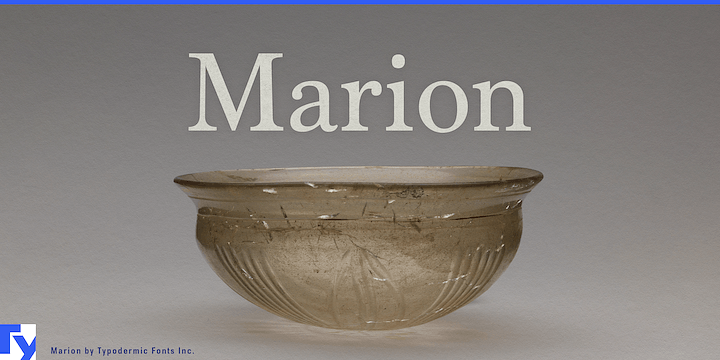
Step into the refined world of Marion, a transitional serif typeface that bridges the gap between centuries with effortless grace. This extraordinary typeface doesn’t merely nod to the past—it orchestrates a typographic symphony that resonates with the echoes of the industrial revolution and the whispers of literary salons. Marion’s DNA is a masterful blend of influences, fusing the classical structure of Century Roman with the refined stroke treatment of Baskerville. But it’s the typeface’s distinctive hammer claw serifs that truly set it apart, infusing each character with the robust spirit of 19th-century innovation. These unique serifs evoke the image of steam-powered precision, as if each letter were forged in the heart of a Victorian foundry. Available in Regular, Italic, Bold, and Bold Italic, Marion offers a quartet of voices that can articulate any design vision. From the understated elegance of its Regular weight to the commanding presence of its Bold, each variation maintains Marion’s core identity—a perfect balance of historical gravitas and contemporary finesse. Marion doesn’t just speak to the past; it converses with it. The inclusion of old-style numerals and standard f-ligatures ensures that your text not only looks authentic but reads with the fluid grace of a well-penned novel. For those moments when your design calls for a touch of whimsy, Marion’s eccentric discretionary ligatures and chirpy swash letters stand ready to add a flourish of personality. In the realm of branding and editorial design, Marion reigns supreme. Imagine this font gracing the pages of a luxurious coffee table book, lending gravitas to the masthead of a respected journal, or adding a touch of industrial chic to a craft brewery’s label. Its unique blend of historical allure and modern sensibility makes it an ideal choice for any brand seeking to convey both heritage and innovation. Marion’s linguistic versatility is as impressive as its design pedigree. Supporting an extensive array of Latin-based European languages, Vietnamese, Greek, and most Cyrillic-based writing systems, it ensures your message resonates with the same clarity and elegance whether you’re addressing audiences in Paris or St. Petersburg, Athens, or Hanoi. Each language finds its voice in Marion’s carefully crafted characters, turning every paragraph into a celebration of typographic heritage. Don’t just design—curate a typographic experience with Marion. Let this typeface be the cornerstone of creations that don’t just communicate, but transport readers to an era of industrial marvels and literary giants. Add Marion to your design palette today, and watch as it transforms your creations from mere text into visual narratives that span centuries.